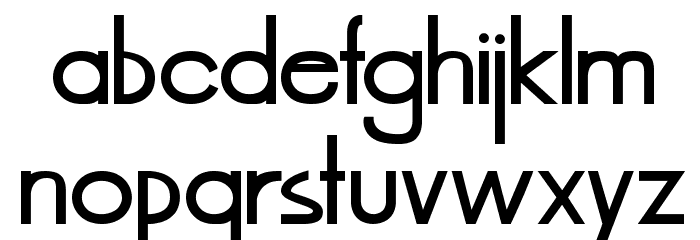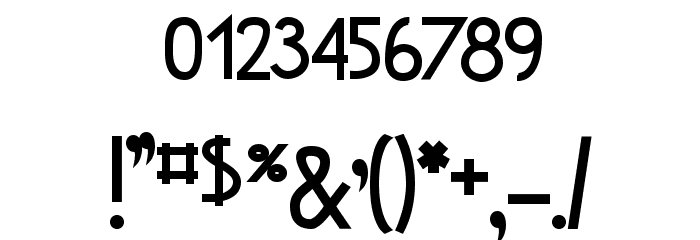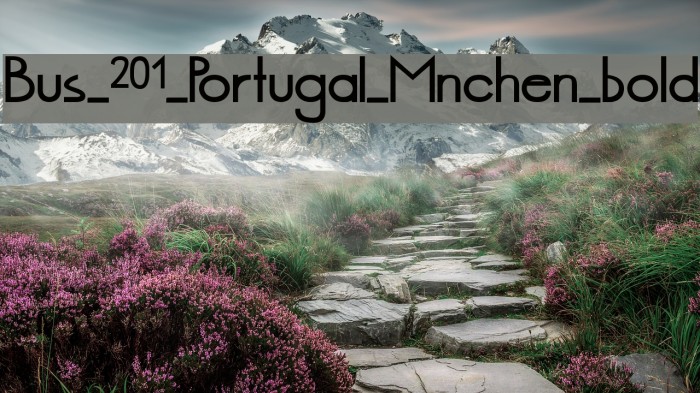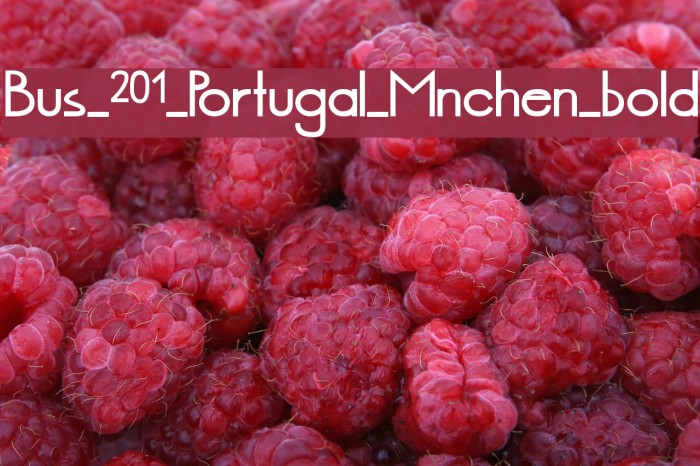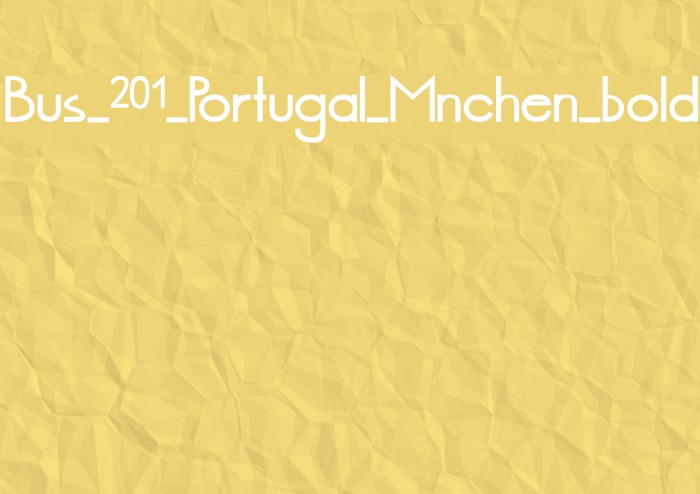
Bus_201_Portugal_Mnchen_bold Font
This font features a clean and geometric design with a modern aesthetic. The uppercase letters are bold and structured, with sharp angles and a consistent stroke width that conveys strength and clarity. The lowercase letters maintain the same geometric style, offering a harmonious balance between the two cases. Numbers are equally bold and clear, making them highly legible. The special characters are designed to match the overall style, ensuring consistency across all glyphs. This font is versatile and can be used in various design contexts where a modern and bold statement is desired.
A bold, geometric font with a modern and clean design.
- Proposed Projects: Ideal for branding, advertising, headlines, and modern web design projects.
- Use Case: Headlines, Logos, Branding